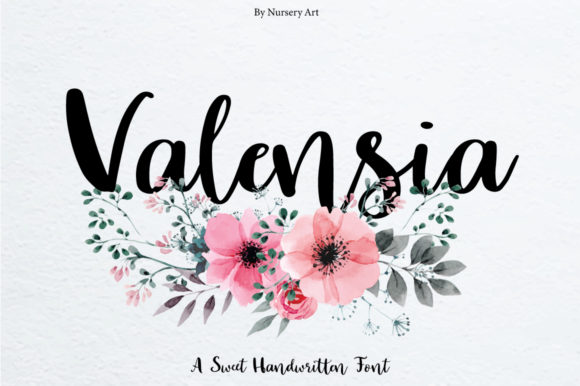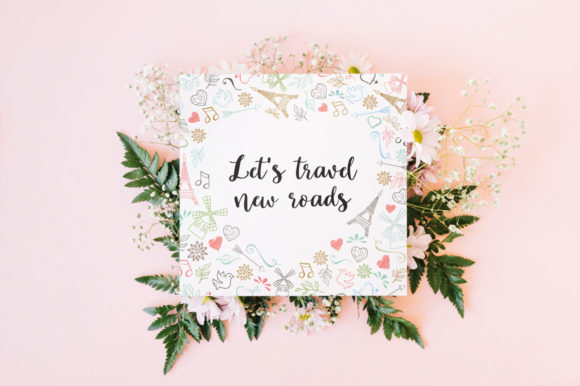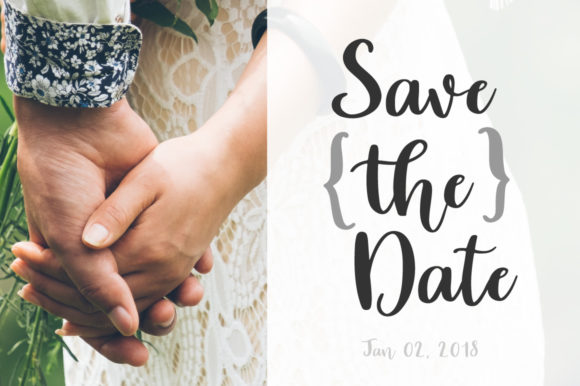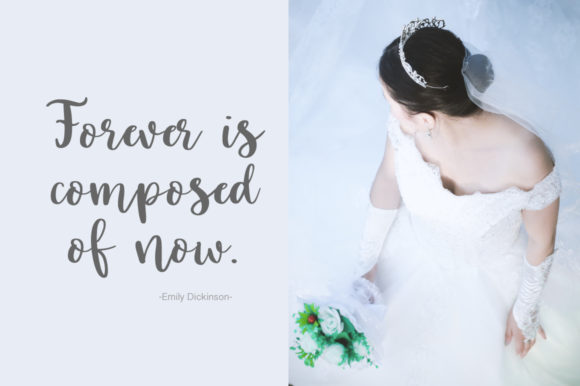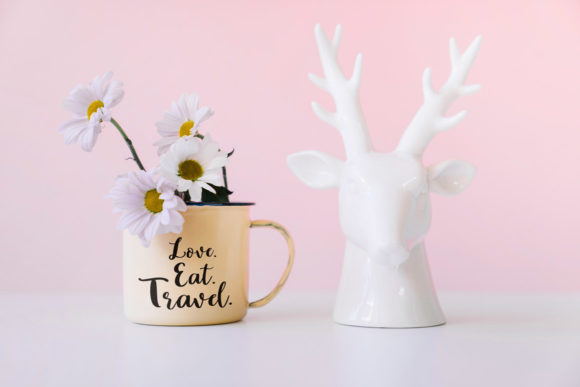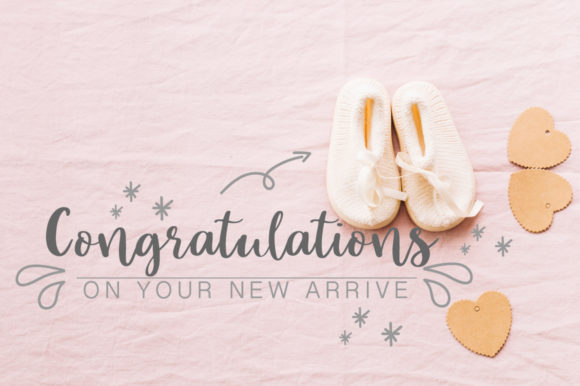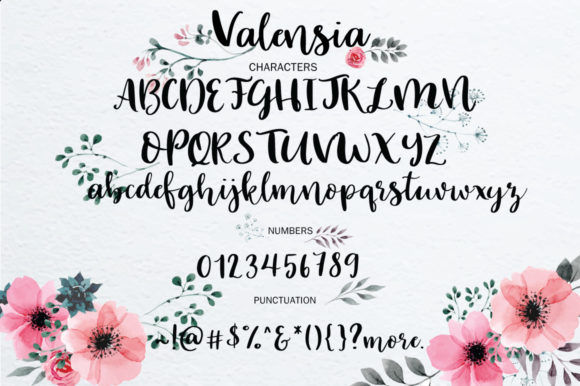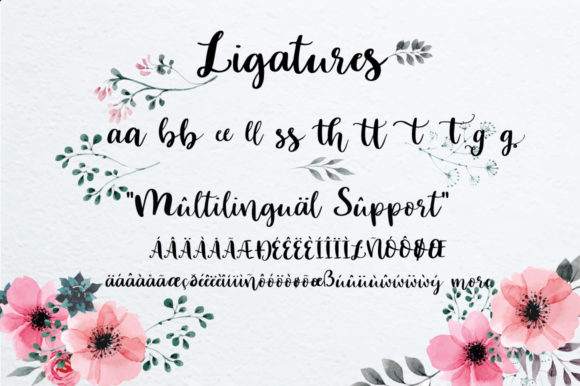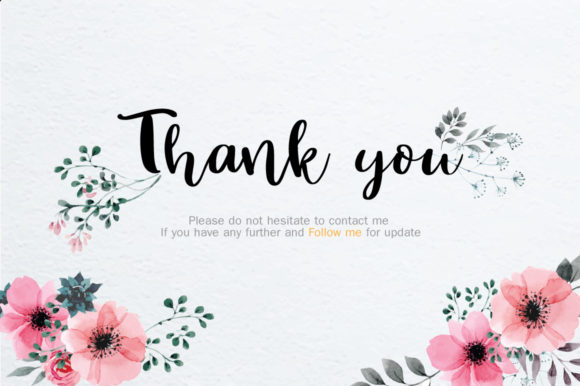
Valensia Font
About Valensia Font
The Valensia is a casual brush font with a multitude of letter variations to make that perfect and unique design.
Its elegant style is perfect for wedding invitations, blogs, businesses, book covers, and much more!